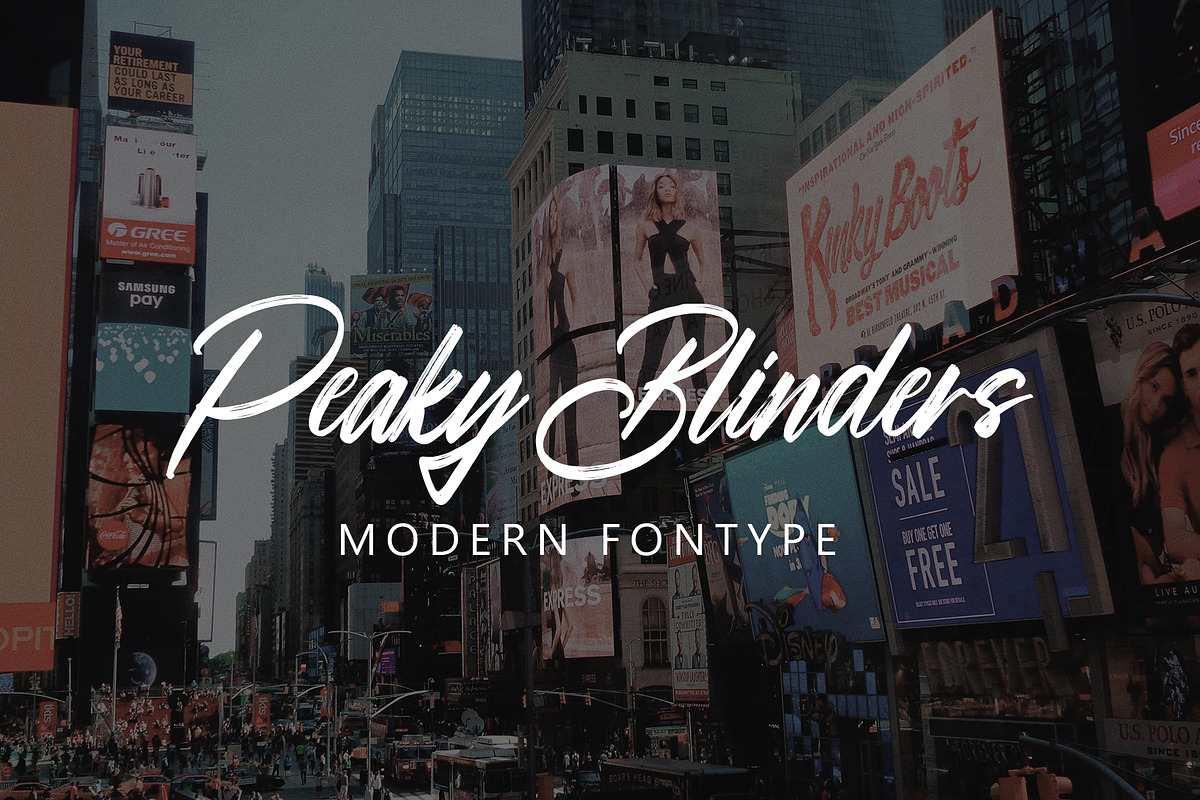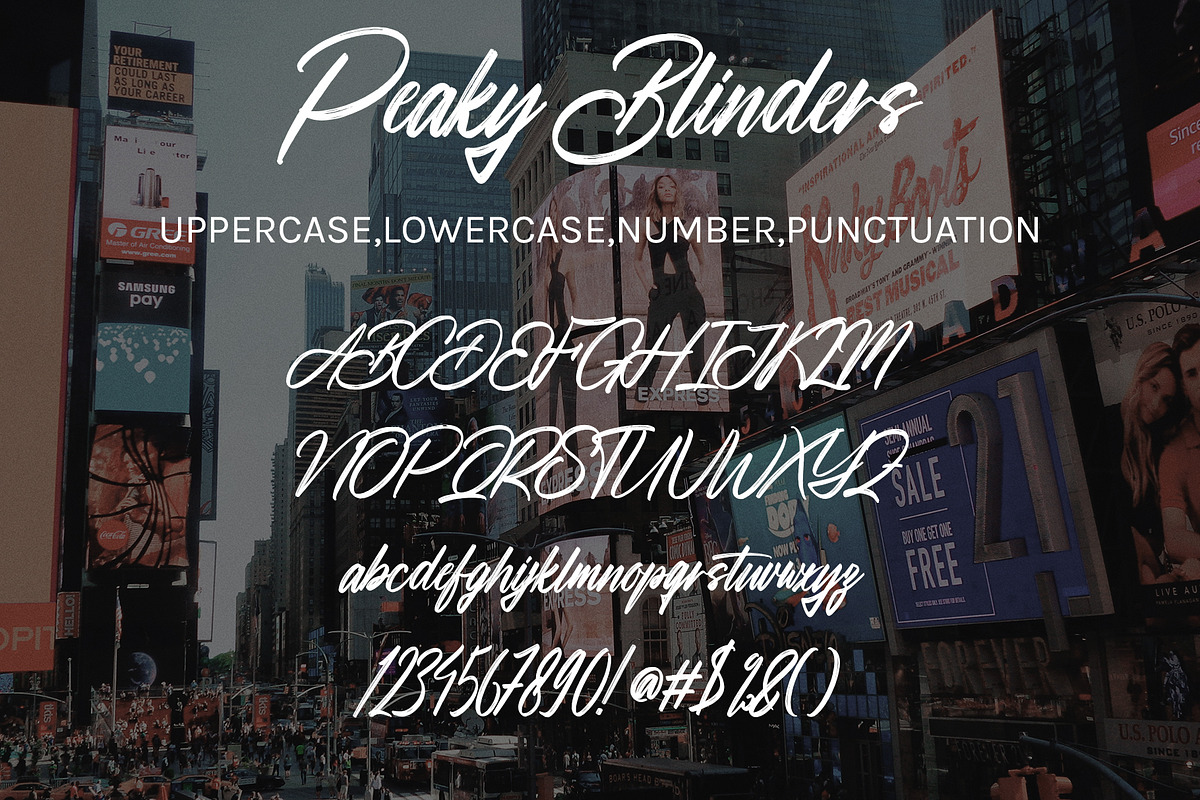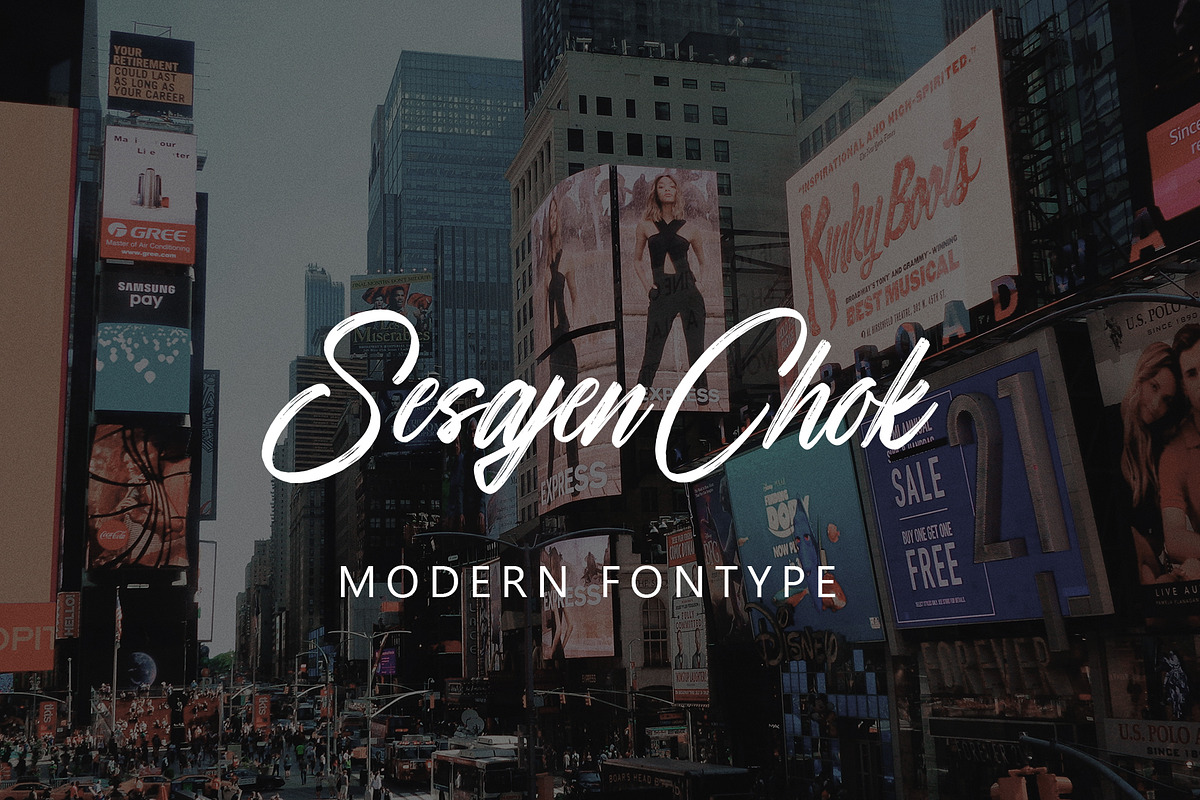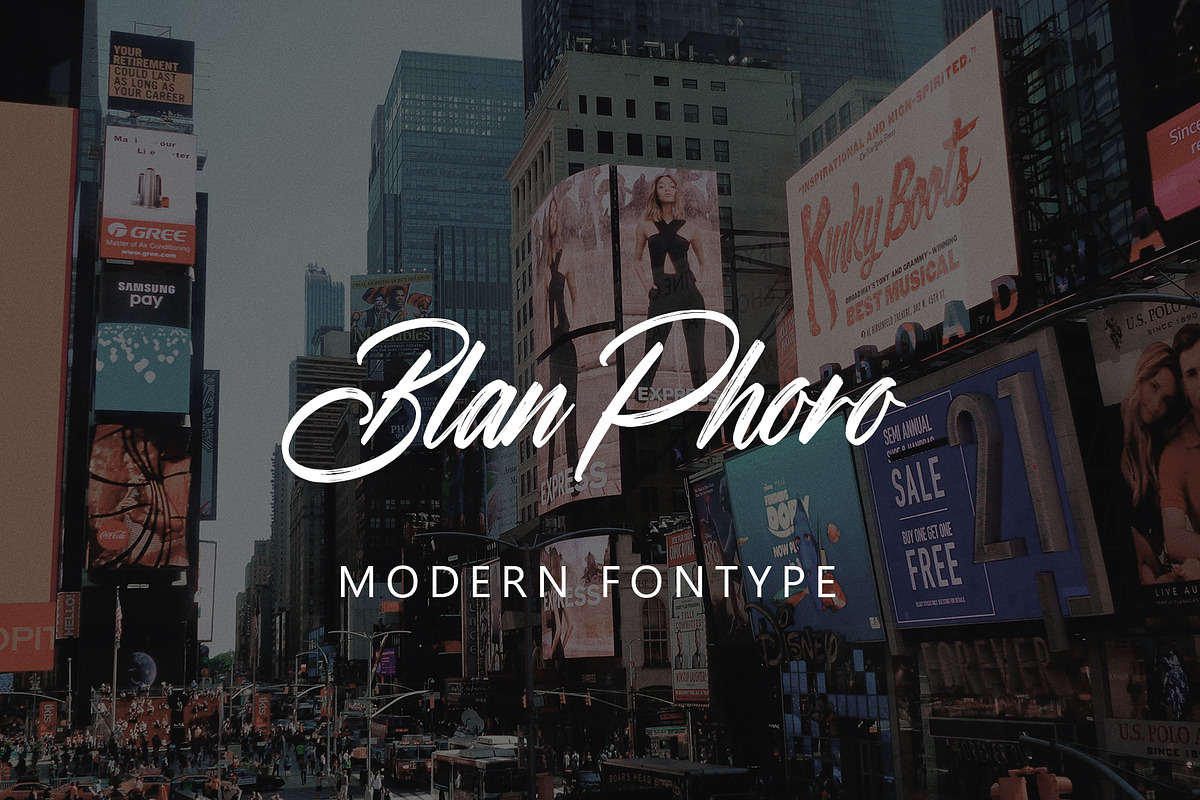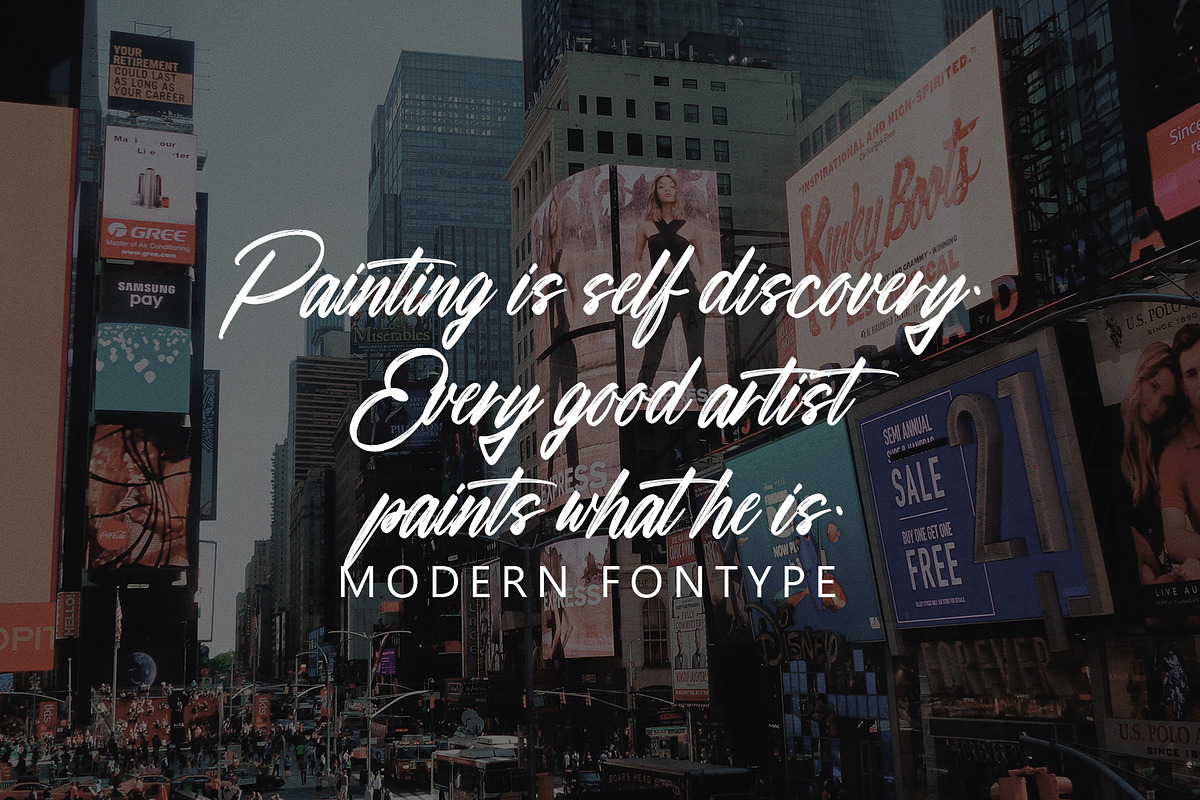
Peaky Blinders
Peaky Blinders with new style, this font will perfect for many different project ex: quotes, logo, blog header, poster, banding, letter, invitation, stationery, etc...